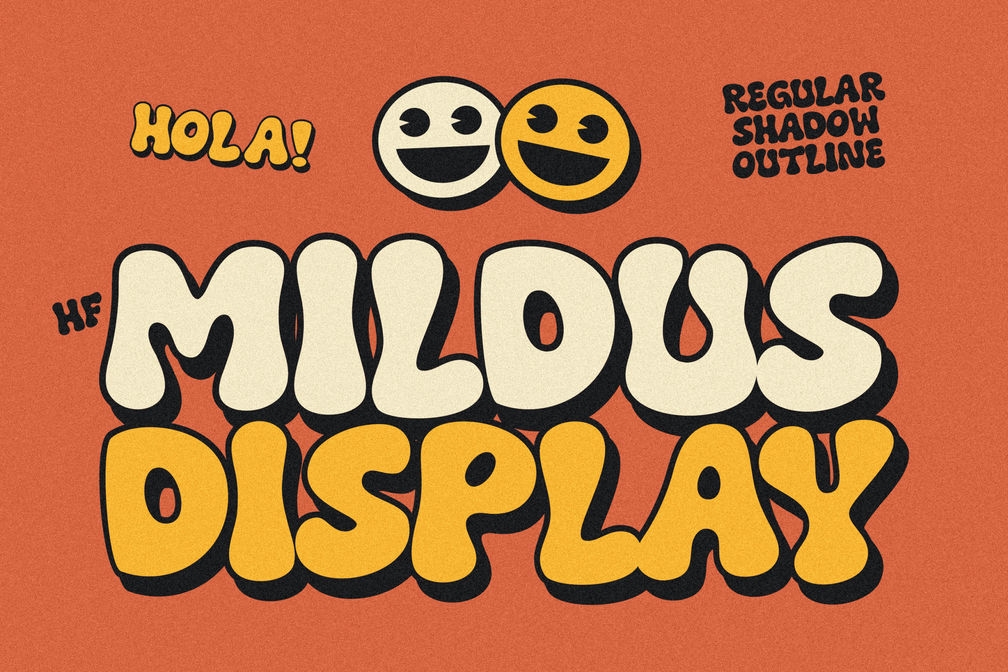
HF Mildus – Bubbly Font
Mildus is a layered bubble-shaped font will have a fun and cheerful feel to your design. With your creativity, you can use this font in t-shirt designs, mugs, posters, quotes, advertising materials and so on. You can also explore this font because shadow and outline styles are available in OTF, TTF, even WOFF/WOFF2 formats.
• All Caps
• Includes Layered Style (Shadow and Outline)
• Punctuation
• Number
• Symbol
• Multilingual Support